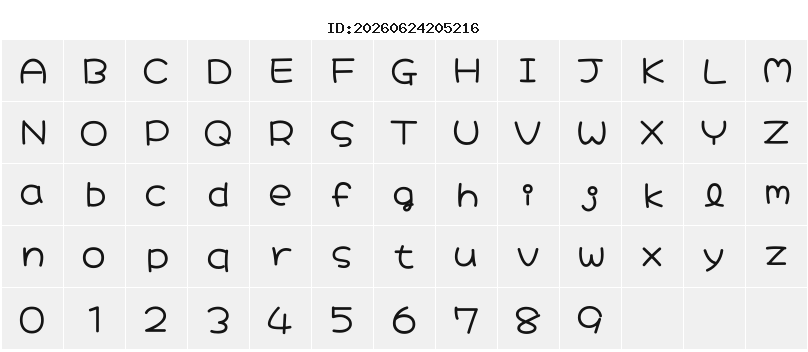
• Font Name: 大波浪圓體 CJK TC-Bold
• Designer: Max Yao
• Manufacturer: Max-Everyday
About 大波浪圓體 CJK TC-Bold.ttf
大波浪圓體 CJK TC-Bold.ttf is a modern, elegant sans-serif font designed for ultimate readability and visual harmony. Perfect for branding, headlines, web design, and print materials.